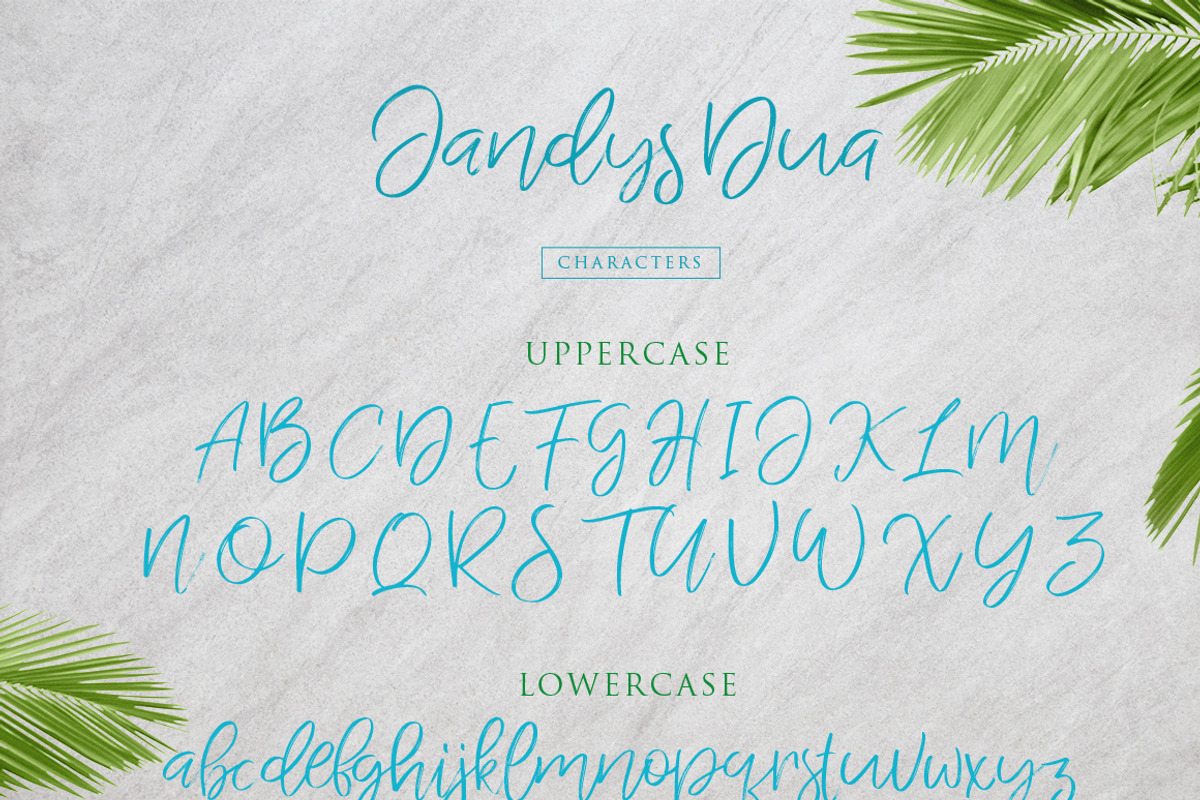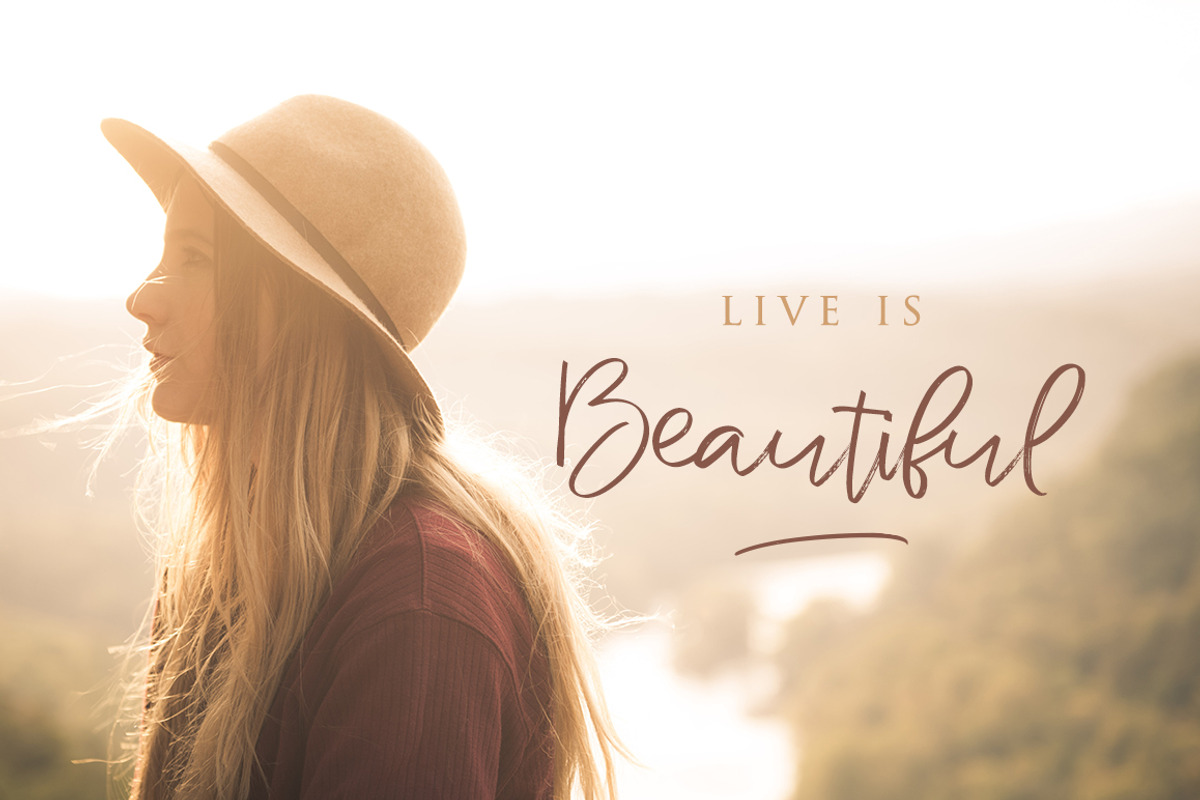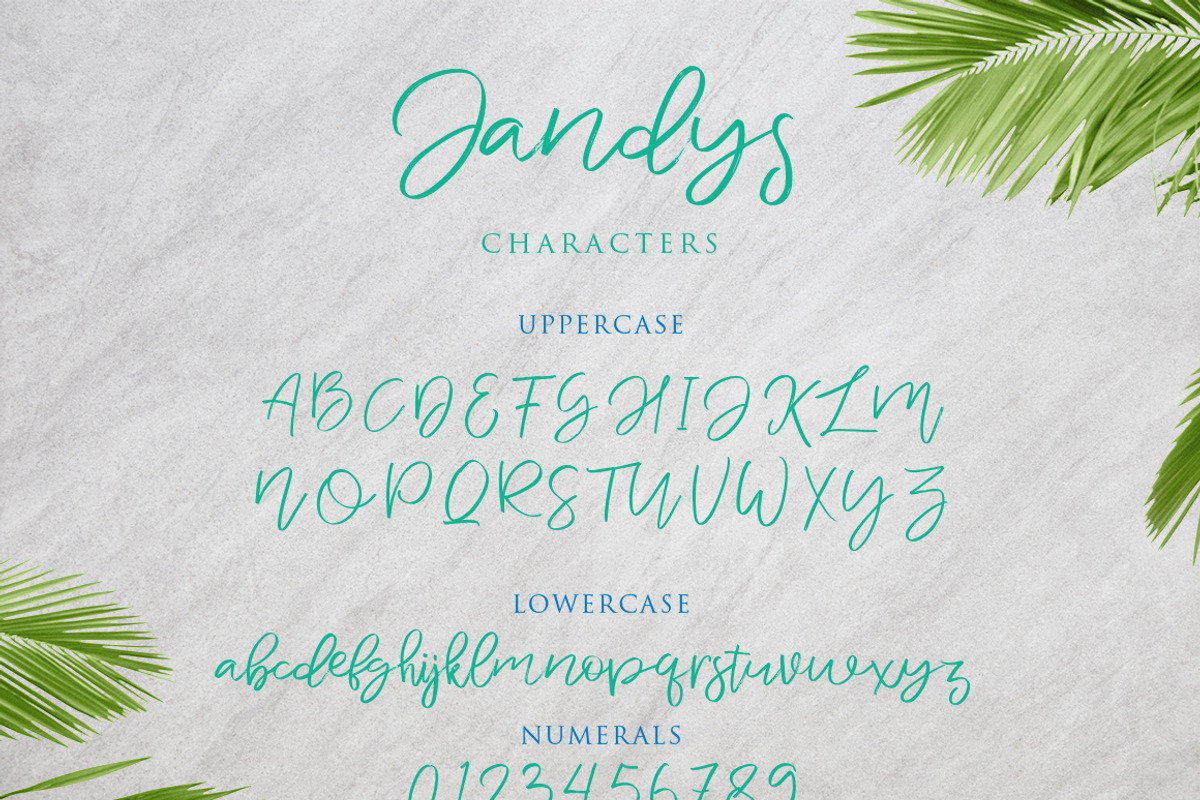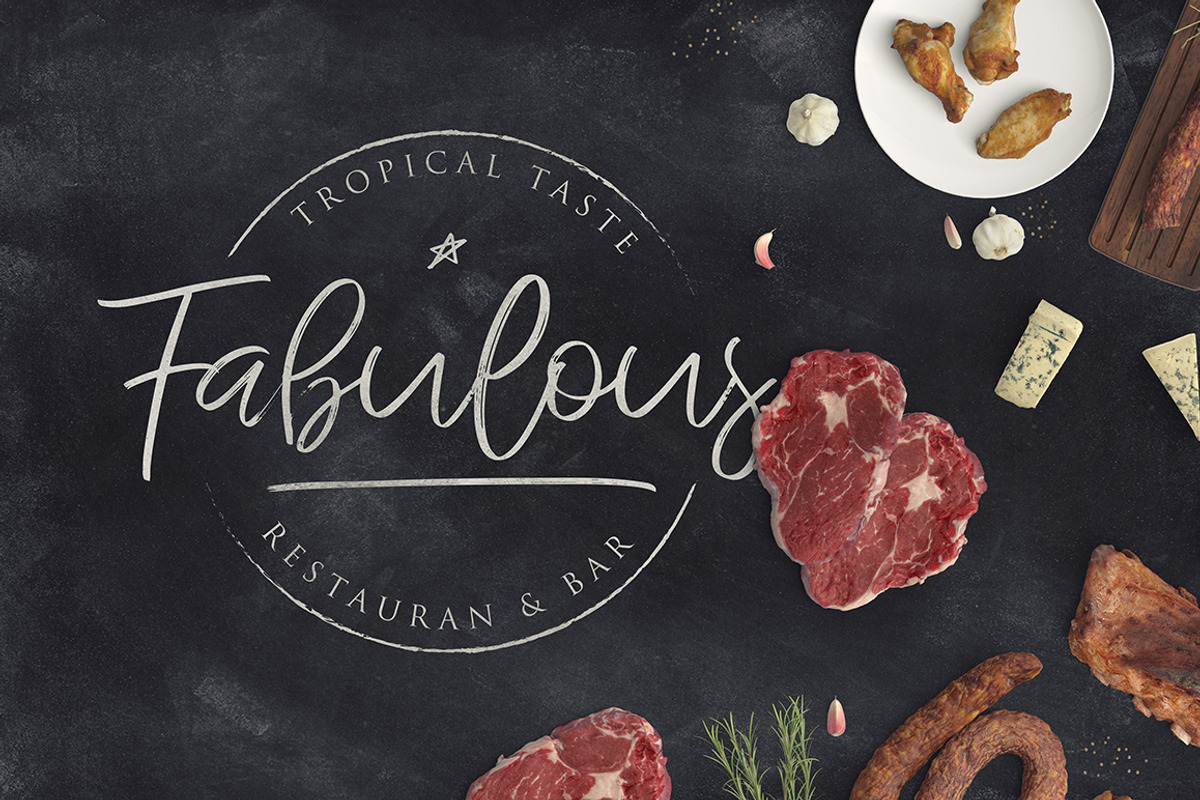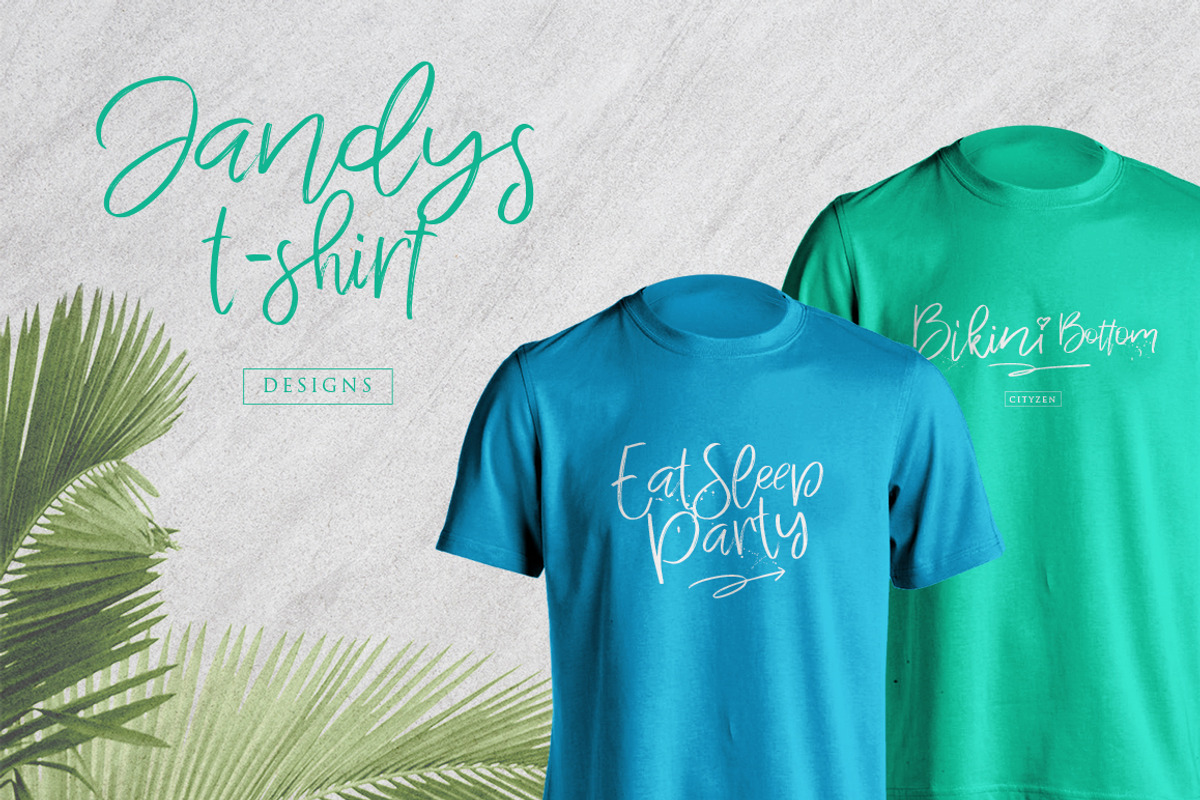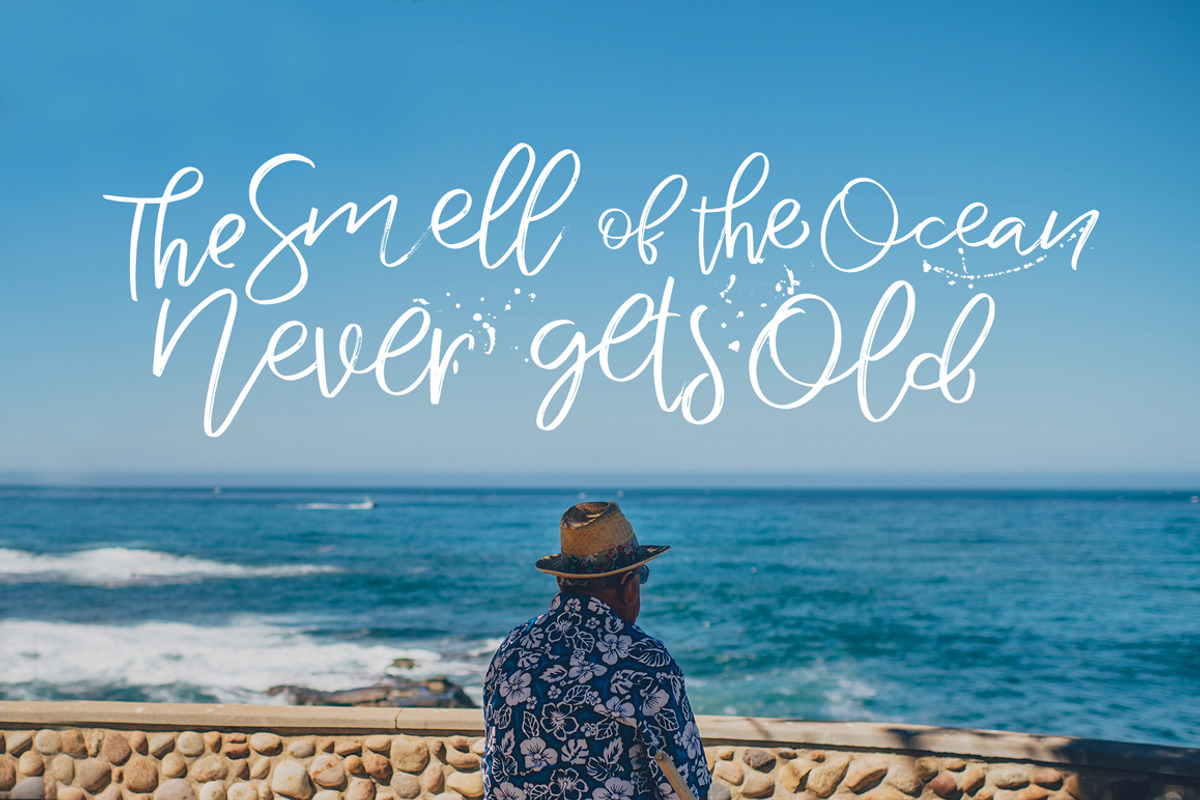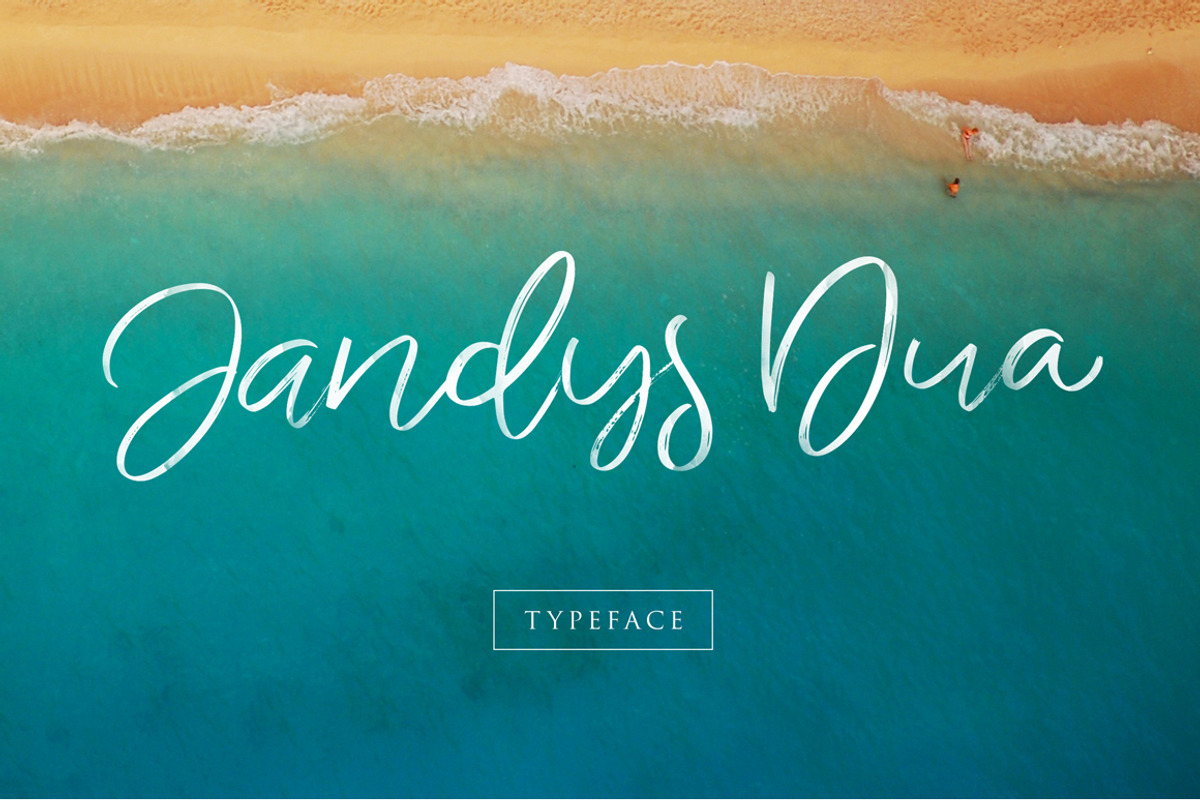
Jandys Typeface
Jandys Typeface by alit design is a font selected for branding, posters, packaging, typography.
Why Jandys Typeface is worth a look
Jandys Typeface by alit design fits naturally into Branding, posters, packaging, typography.